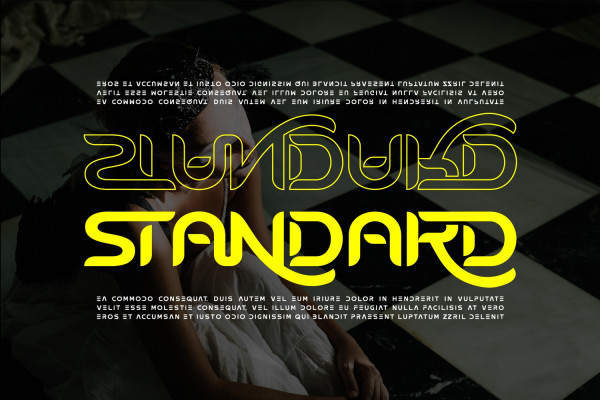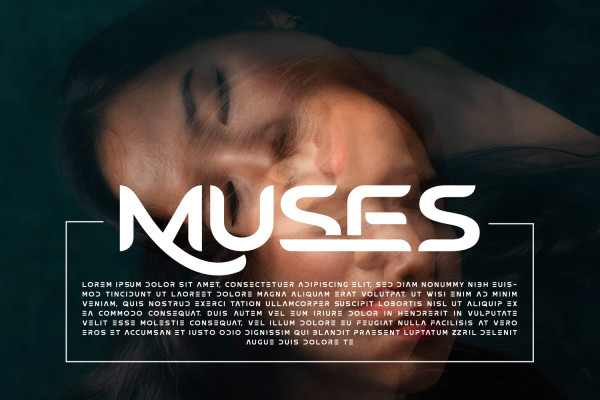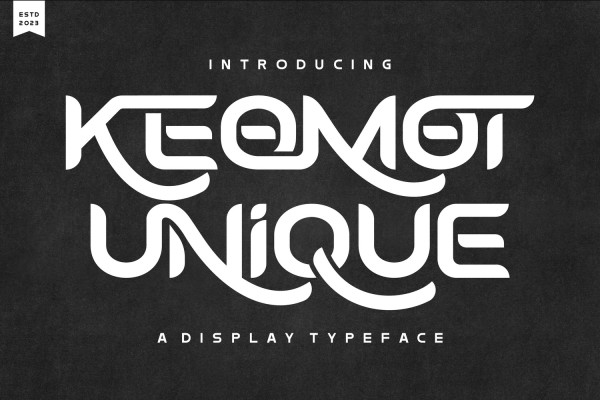
Keomot Unique Font
Keomot Unique Font is a reverse contrast typeface with a modern and clean look. It’s a minimalist logo font with unique edge that will make your logo and design looks more simple and modern. With the unique characteristic lowercase, this font can make your logo even more stunning. You can use this font for any purpose, especially to make logotype. This font will be perfect for logos, branding, holiday invitations, stationery, blog design, product packaging.
Keomot Unique was built with OpenType features and includes 100 ligatures, alternate, numbers, punctuation, and it also supports other languages.
AC AD AL AN AR AS AT AU AV BE CA CE CH CO CT DE DI EA EC ED EE EL EM EN EP ER ES ET FE FO FR GE HA HE HI HO IE IC IL IN IO IR IS IT JU KE LA LE LI LL LO LY MA ME MI NC ND NE NG NO NT NS OC OF OM ON OO OP OR OT OU OW PA PR RA RD RE RI RO RS RT SE SH SI SO SS ST TA TE TH TI TO TR TT UM UN UR VE WI WO